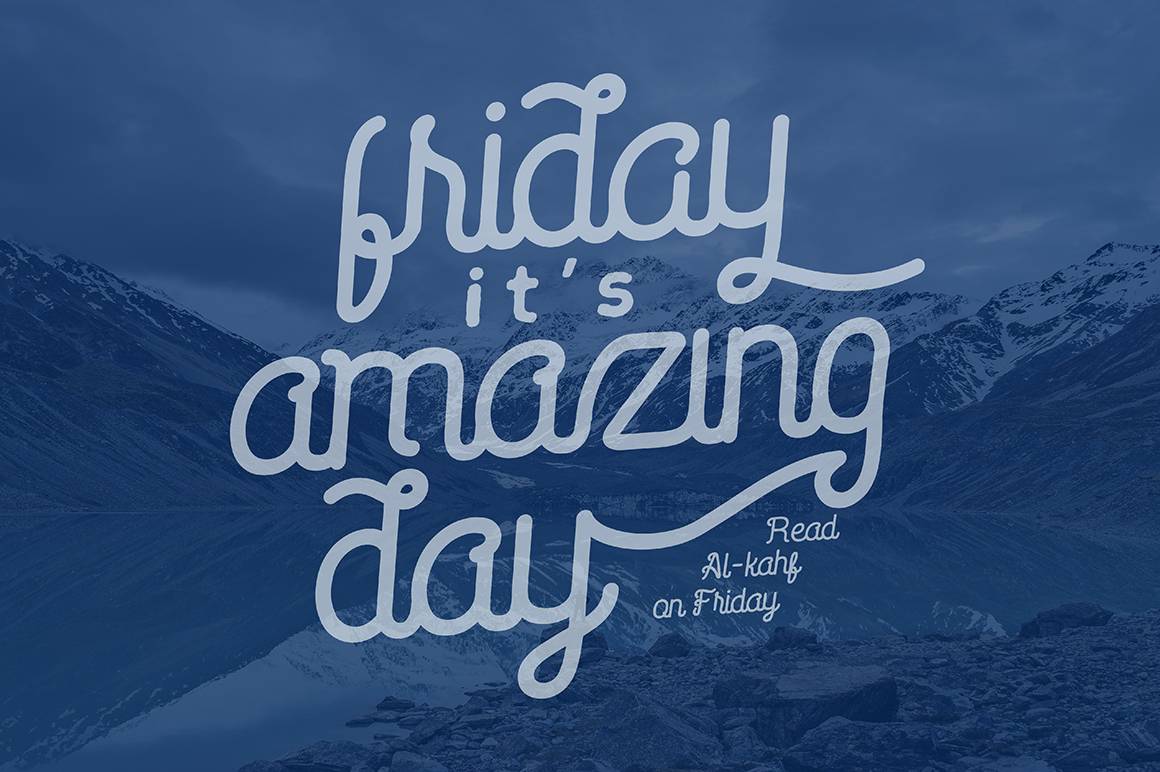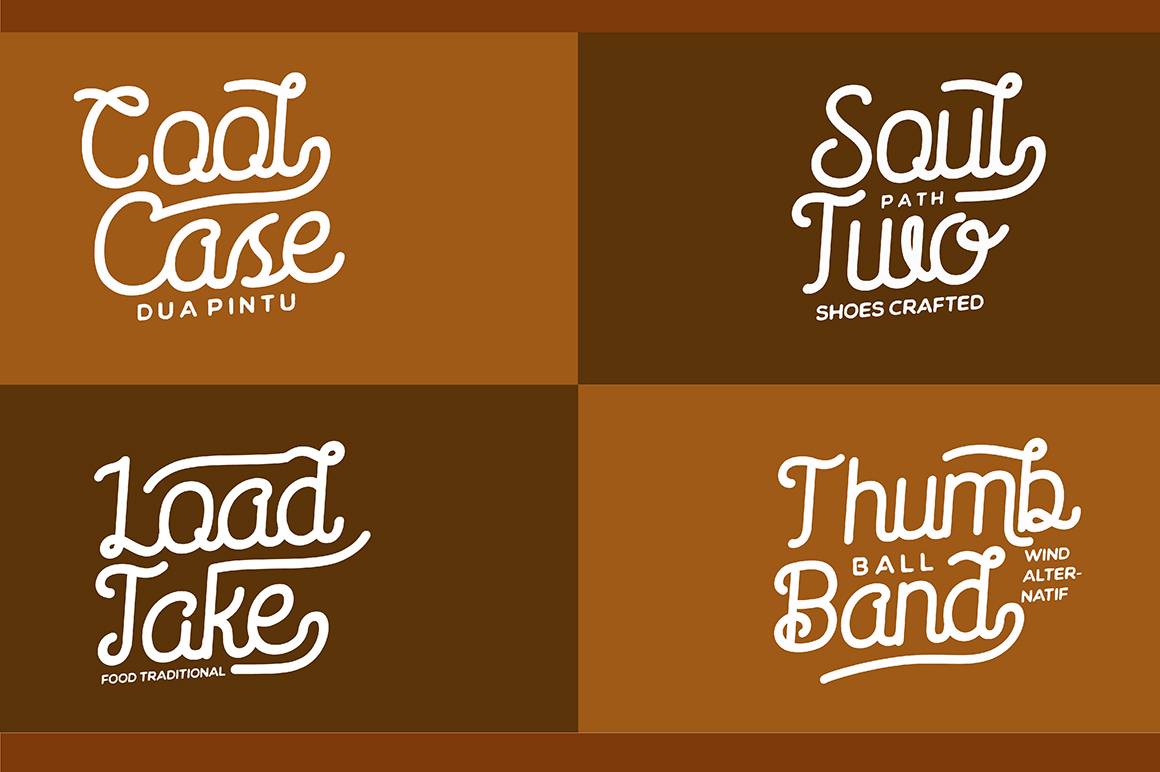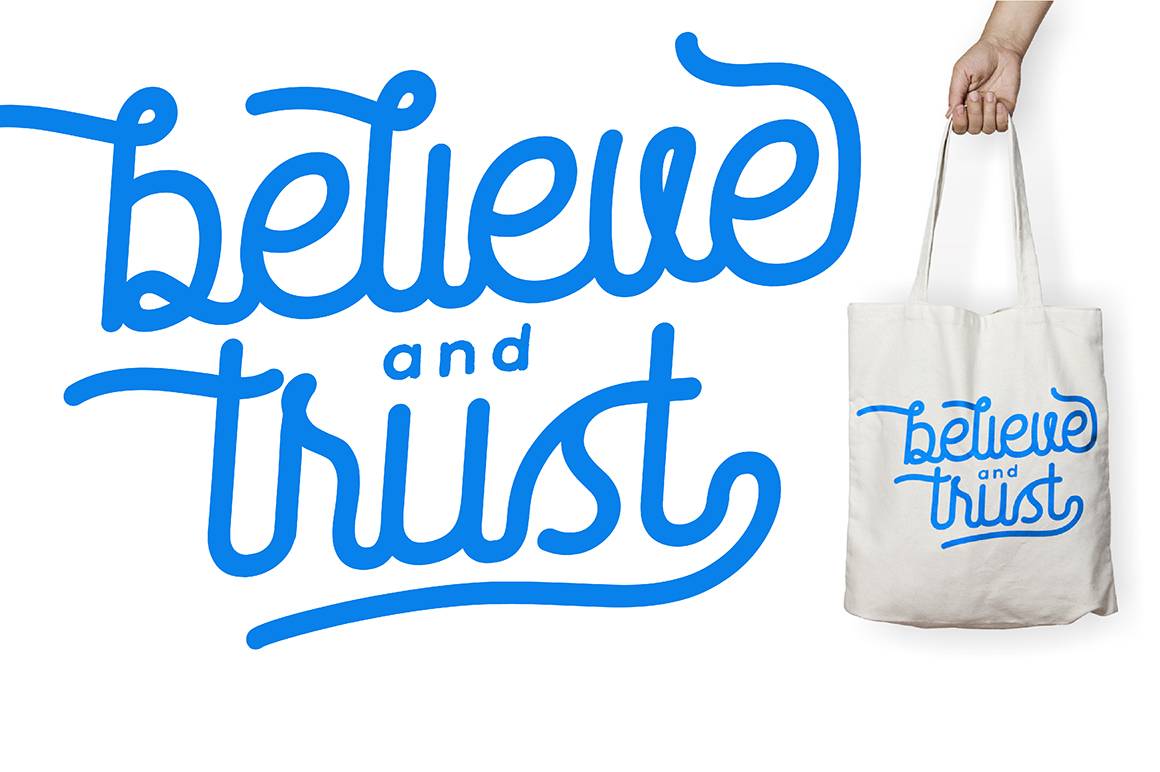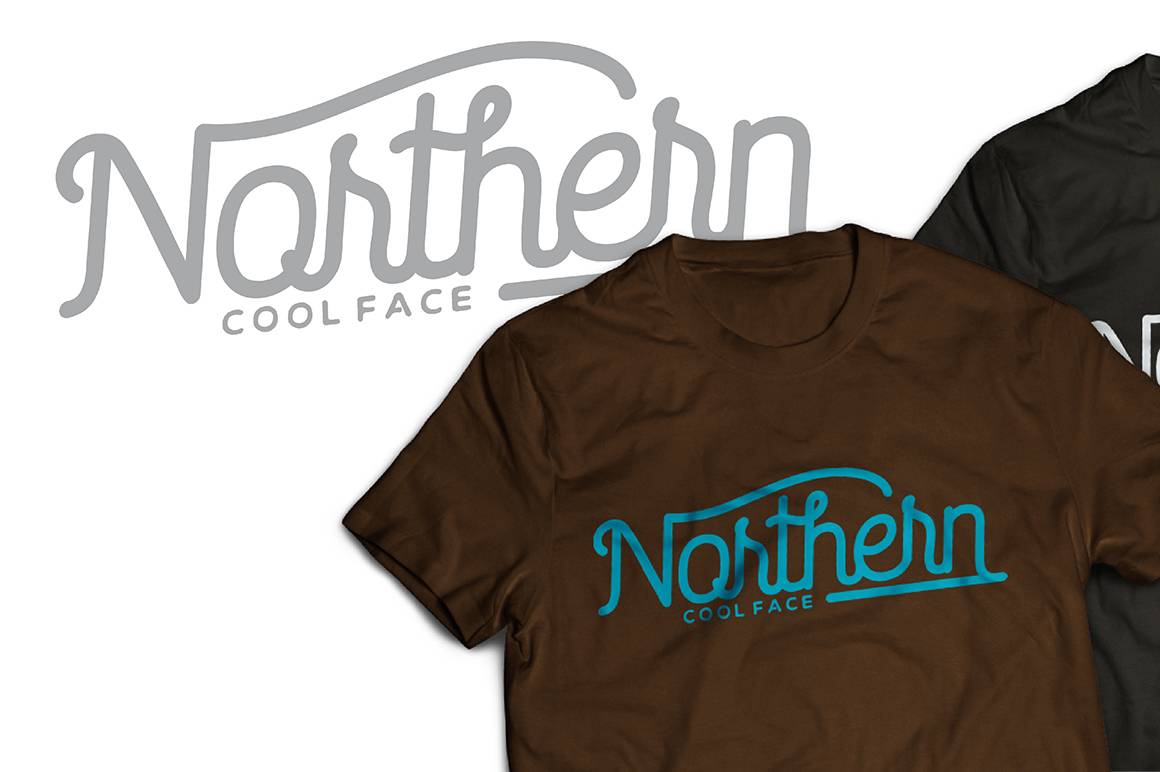
Saffa Script is a playful and modern script font characterized by its rounded, geometric letterforms and smooth, continuous strokes that mimic casual handwriting. With its medium weight, friendly curves, and clear legibility, it fits well in informal branding, packaging, and creative headlines where a relaxed yet stylish vibe is desired. This font shines in designs that need a touch of personality without sacrificing readability.
Saffa Script Font
About Saffa Script Font
| Font family | Saffa Script Font |
| Designer | Lukman Hidayat "Viaction Type.Co" |